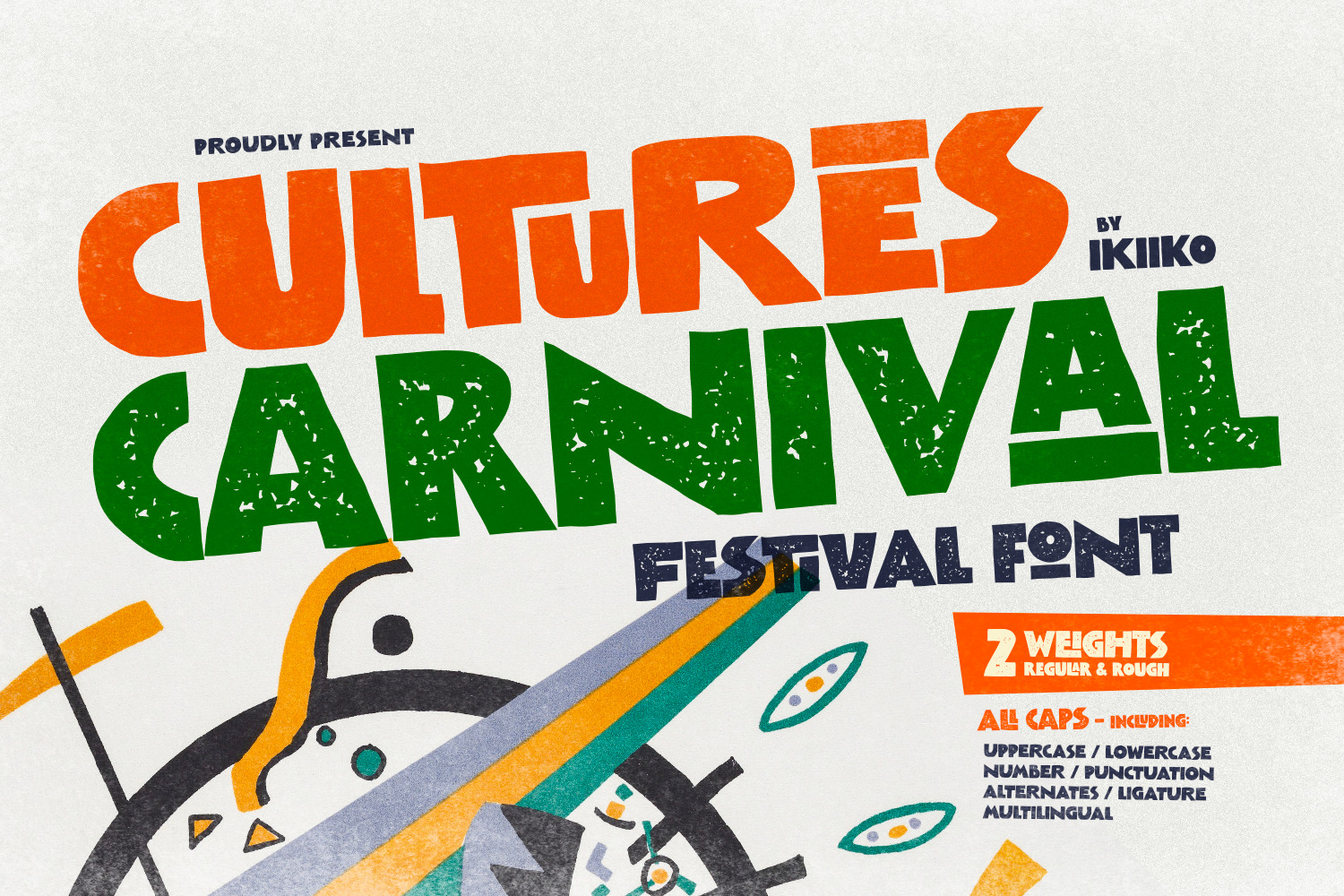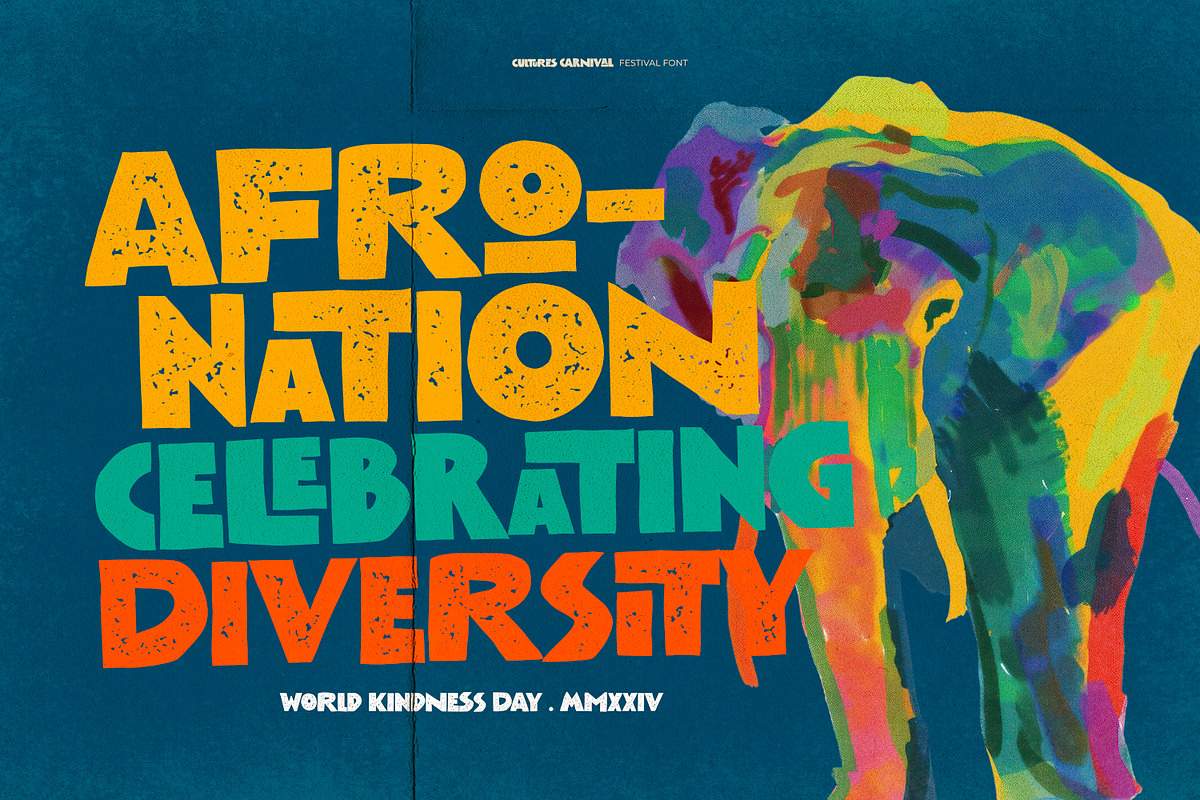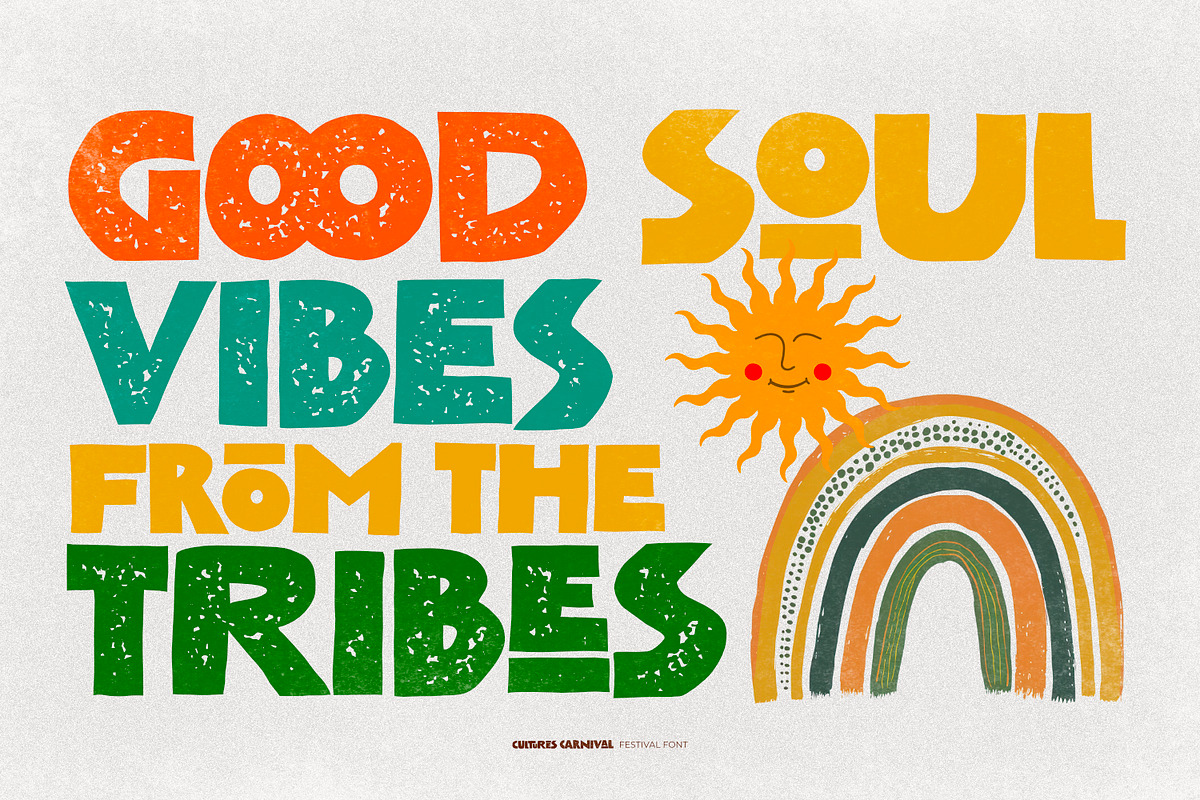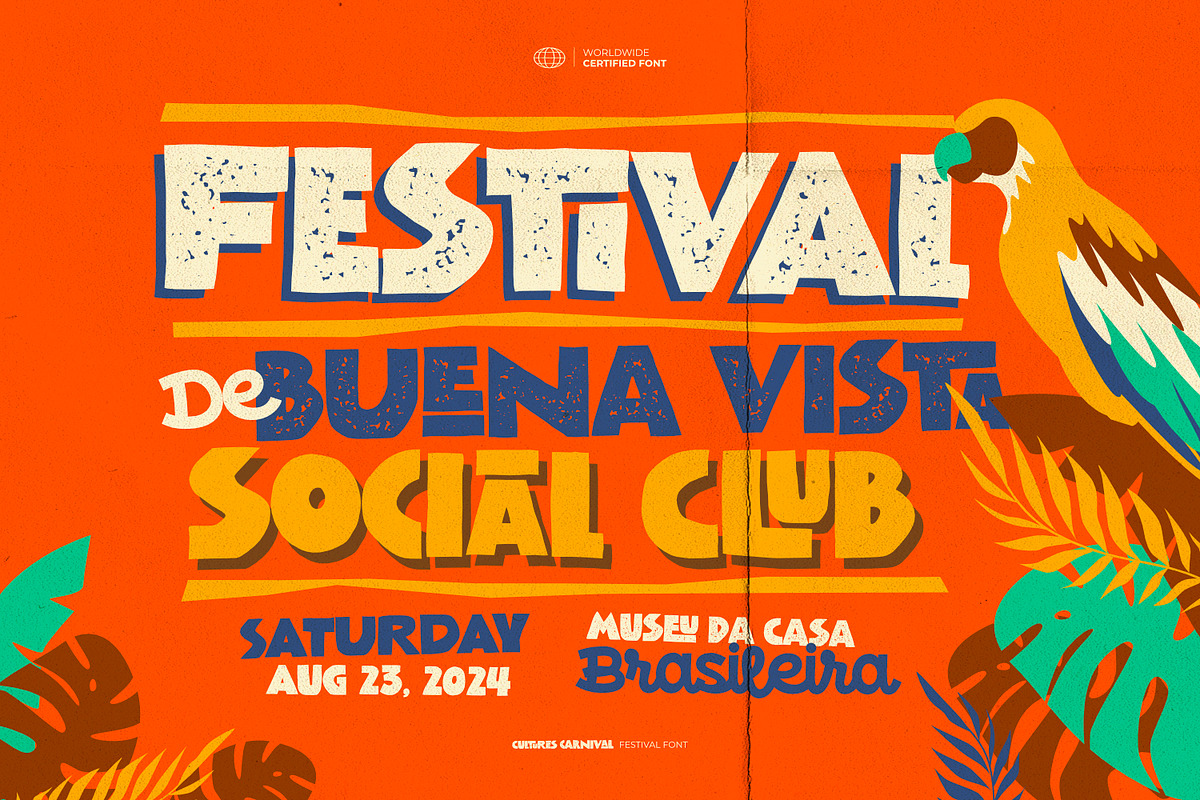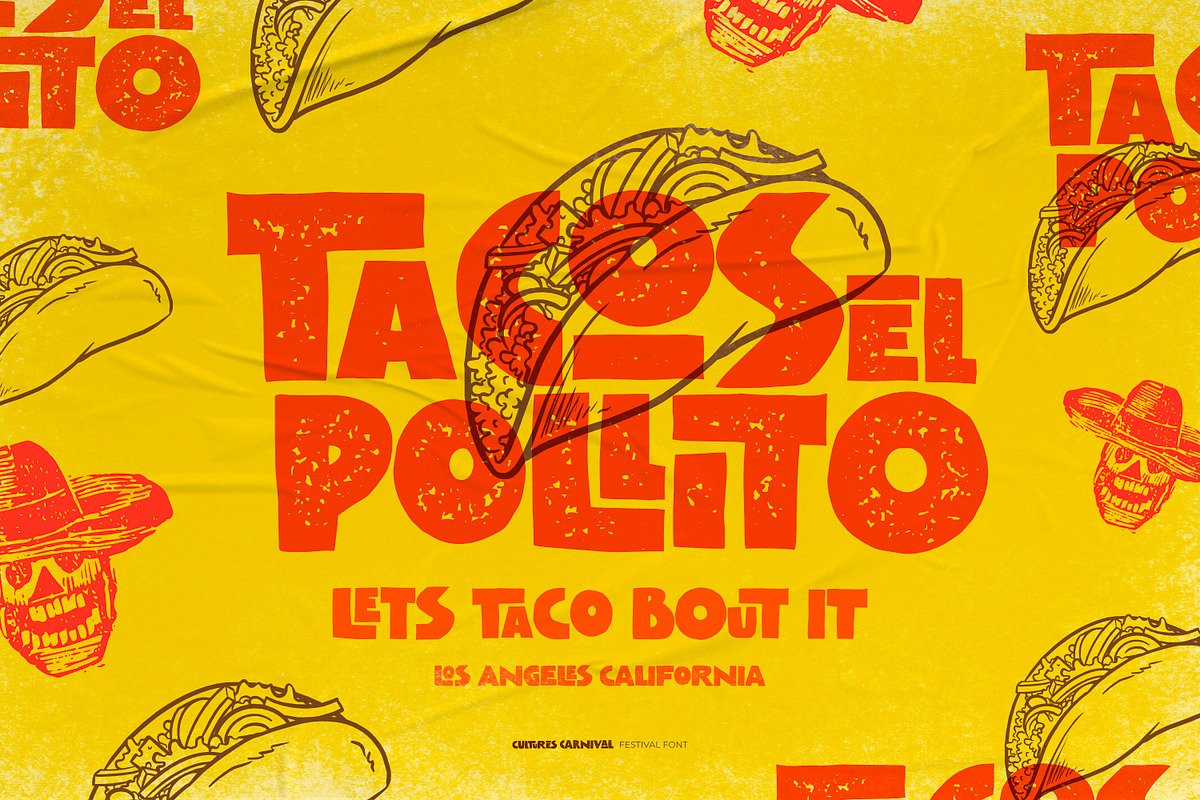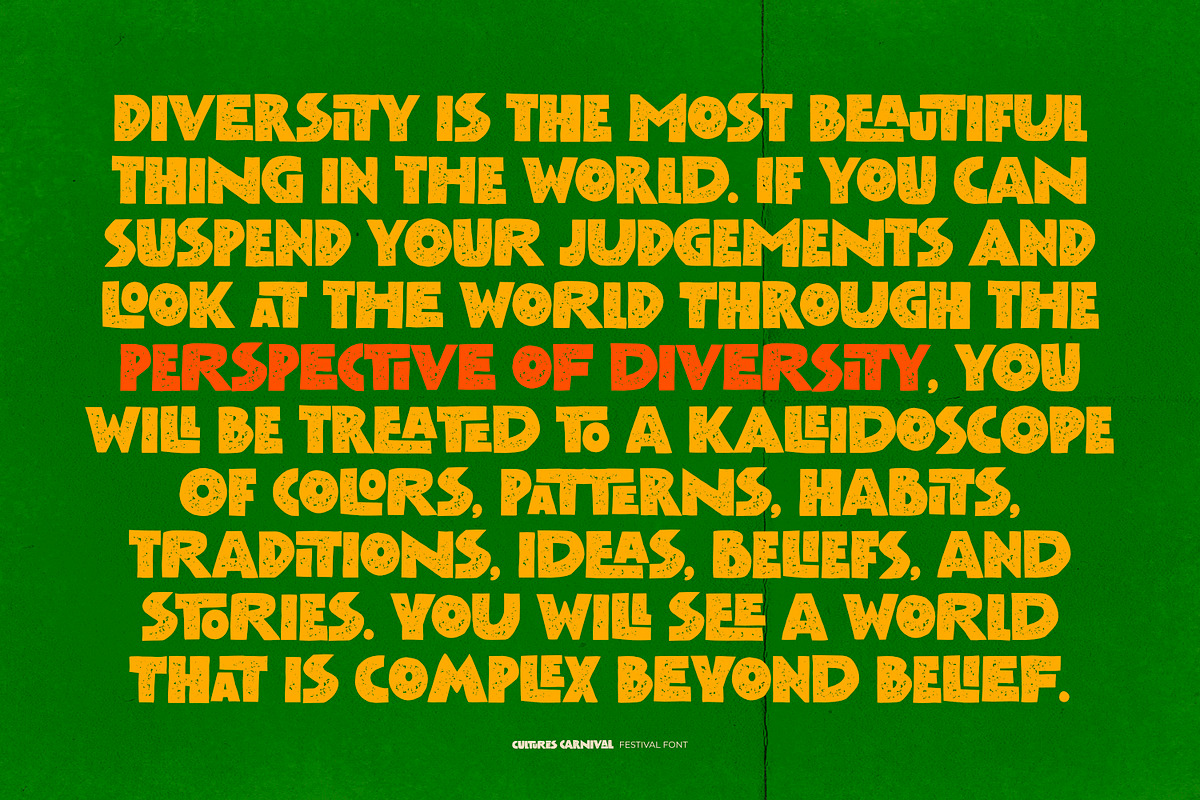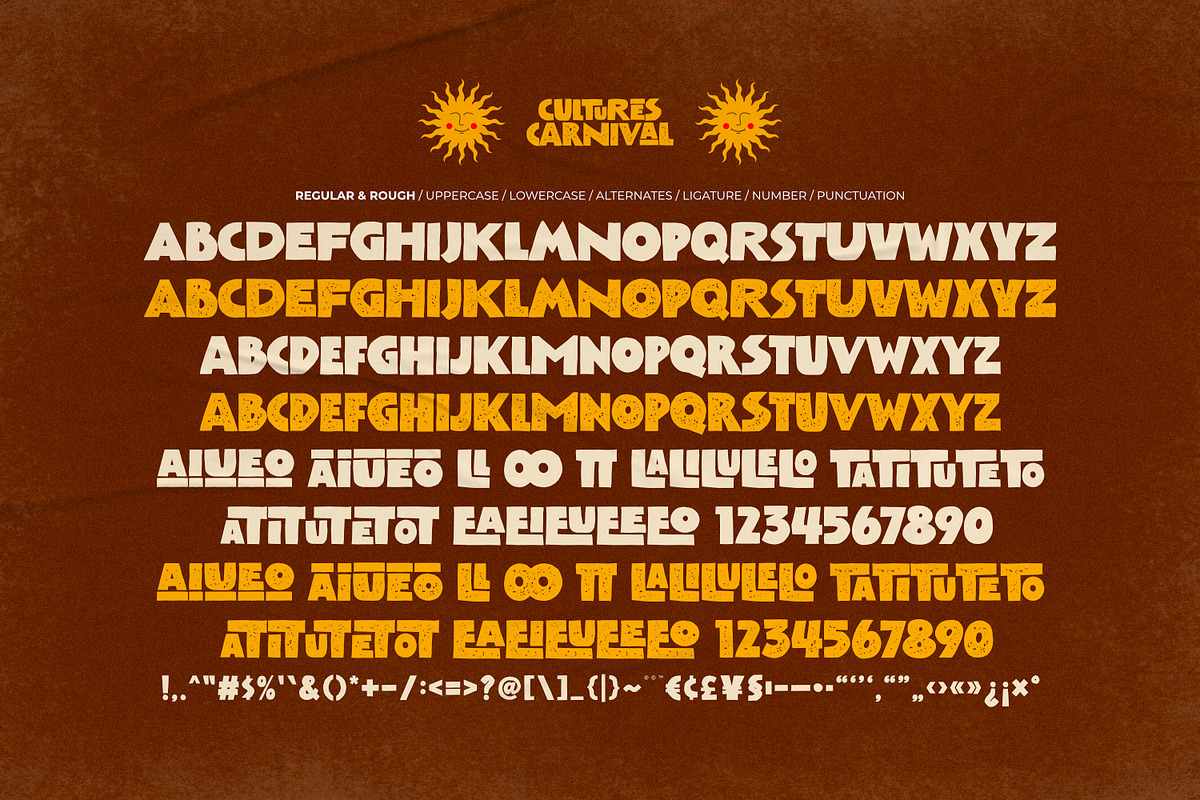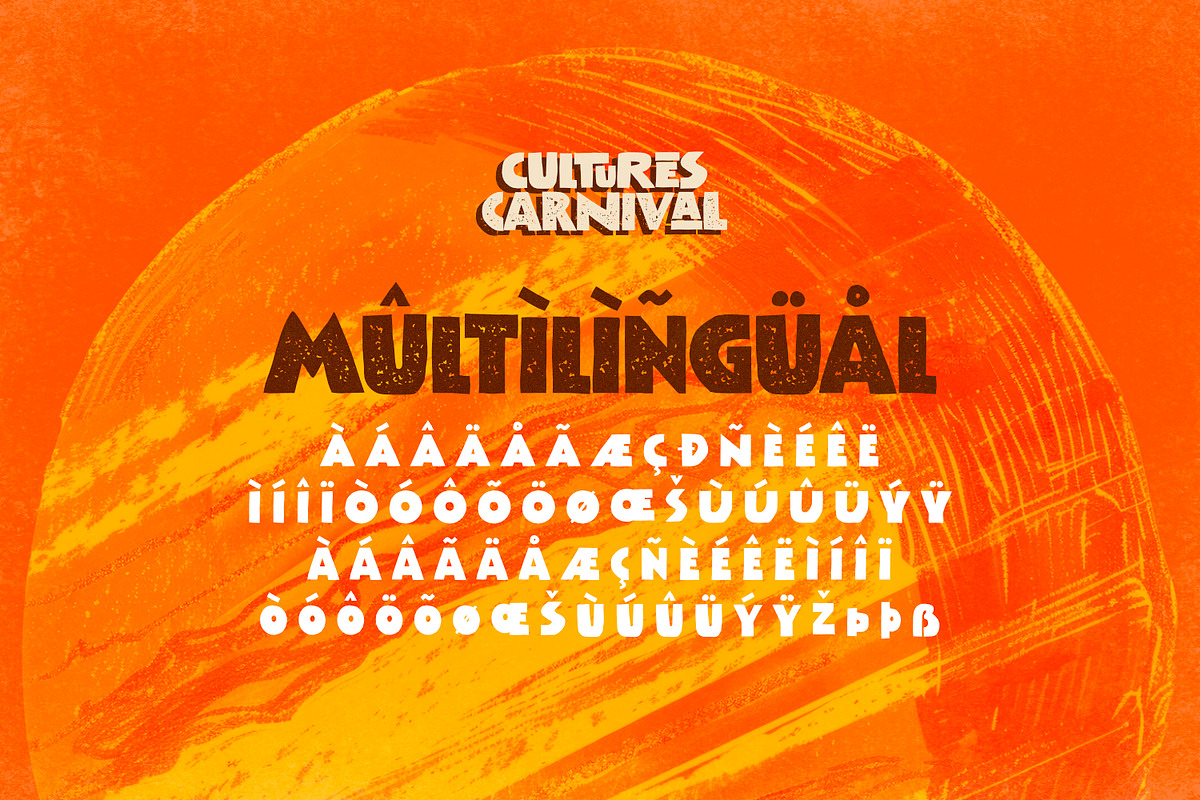
Cultures Carnival - Festival Font
Proudly present Cultures Carnival - Festival Font, created by ikiiko.
Cultures Carnival is a vibrant and expressive typeface that captures the essence of ethnic diversity and cultural celebration. This hand-drawn font exudes a festive spirit, perfect for adding a touch of joy and uniqueness to any design project. With its two distinct styles, Regular and Rough, Cultures Carnival offers versatility and creative freedom, making it ideal for parties, events, and cultural showcases.
The Regular style presents a natural and organic feel that resonates with the warmth of human touch. The Rough style, on the other hand, introduces an element of rustic charm, with its textured and slightly distressed appearance, adding depth and character to your designs.
Cultures Carnival is more than just a font; it’s a unique and natural design elements for celebration of cultural richness and diversity!
This font is very suitable for making a cultural event, poster event, book cover, movie title, magazine layout, packaging, food & beverages, quotes, or simply as a stylish text overlay to any background image.
- 2 Weights : Regular & Rough
- All Caps : Uppercase & Lowercase
- Alternates & Ligature